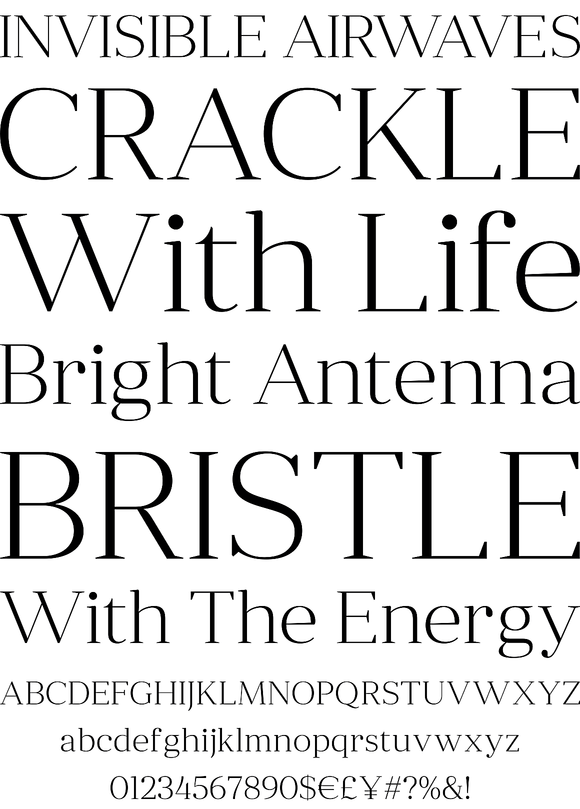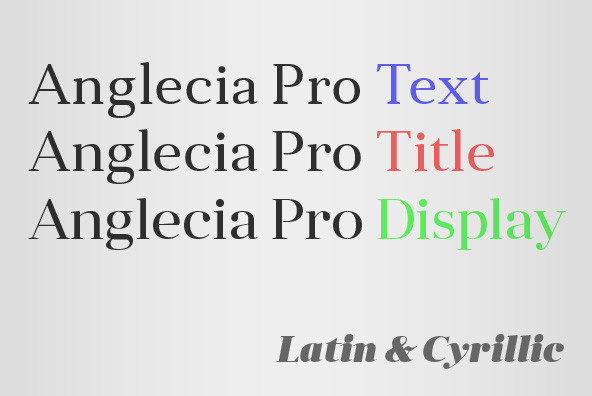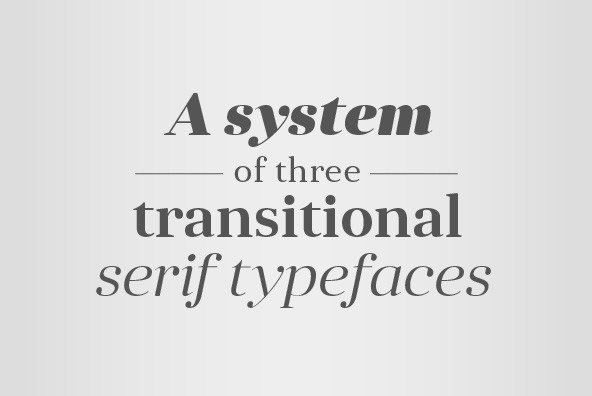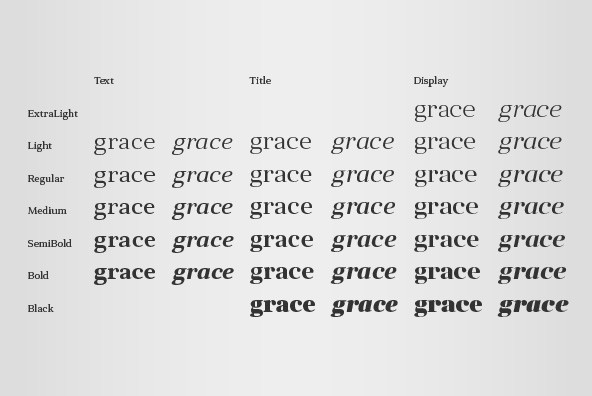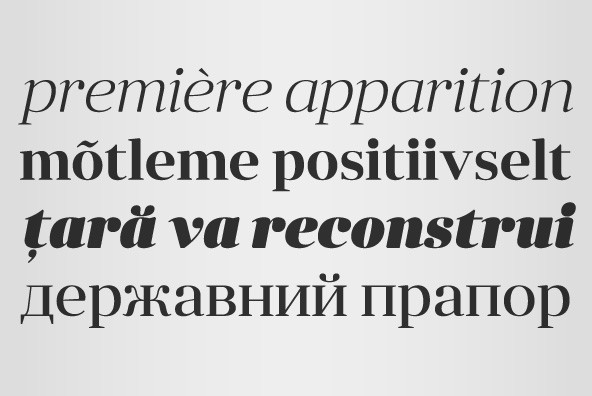
Anglecia Pro Display Font
Anglecia Pro is an exquisite and versatile system of three transitional serif typefaces designed to work together in editorial design. Sharing the same skeleton, vertical axis, and trapezoidal uncurved serifs, each of these faces bears different key dimensions and different contrast typical for three different type epochs.
Anglecia Pro Display, still having non-rectangular serifs and the same soft skeleton as the rest of Anglecia Pro system, features extreme contrast, much thinner serifs and exaggerated ball terminals typical for Didone modern serif families. Its large x-height and tighter letter spacing suggests larger text sizes e.g. in decorative headlines, extra large pull quotes or logos.
Altogether these three typefaces form 36 styles – each supporting numerous Latin-based languages as well as major Cyrillic languages. In roman styles the Cyrillic script comes in two flavours accessible via OpenType alternates – to choose either more traditional and curvy (default) or more formal and rigid type texture. Also, each style is packed with OpenType features: ligatures, small caps, six sets of digits, superiors and inferiors, fractions, ordinals, and respective punctuation varieties including all-cap punctuation. There are also language-specific alternates for Polish kreska, Romanian ?/?, and correct small-cap versions for Turkish/Azerbaijani i/?.